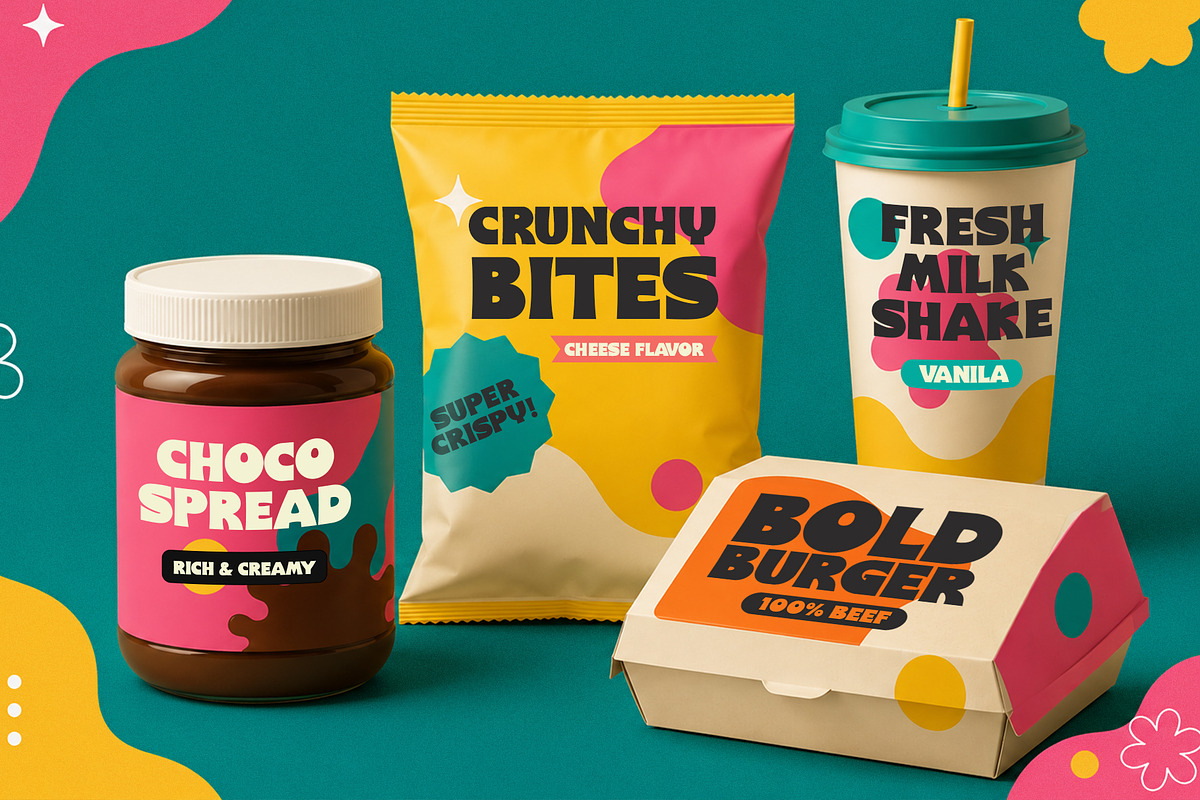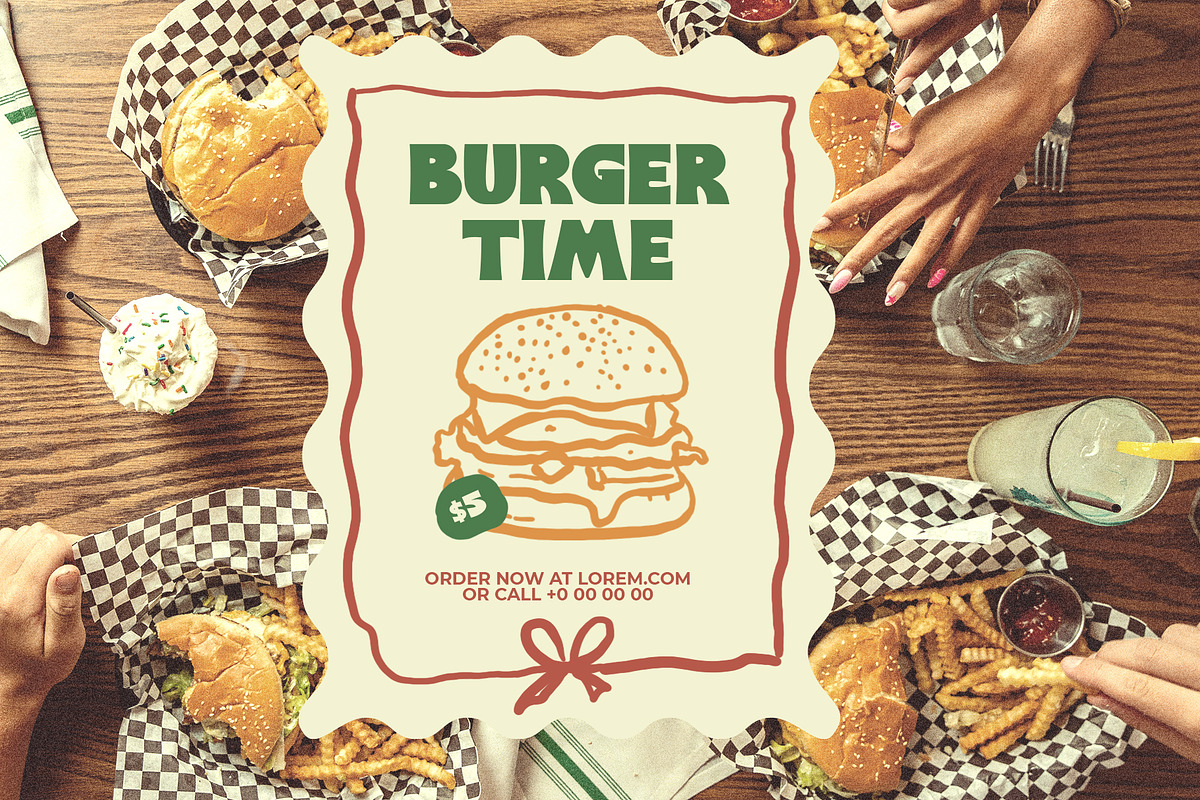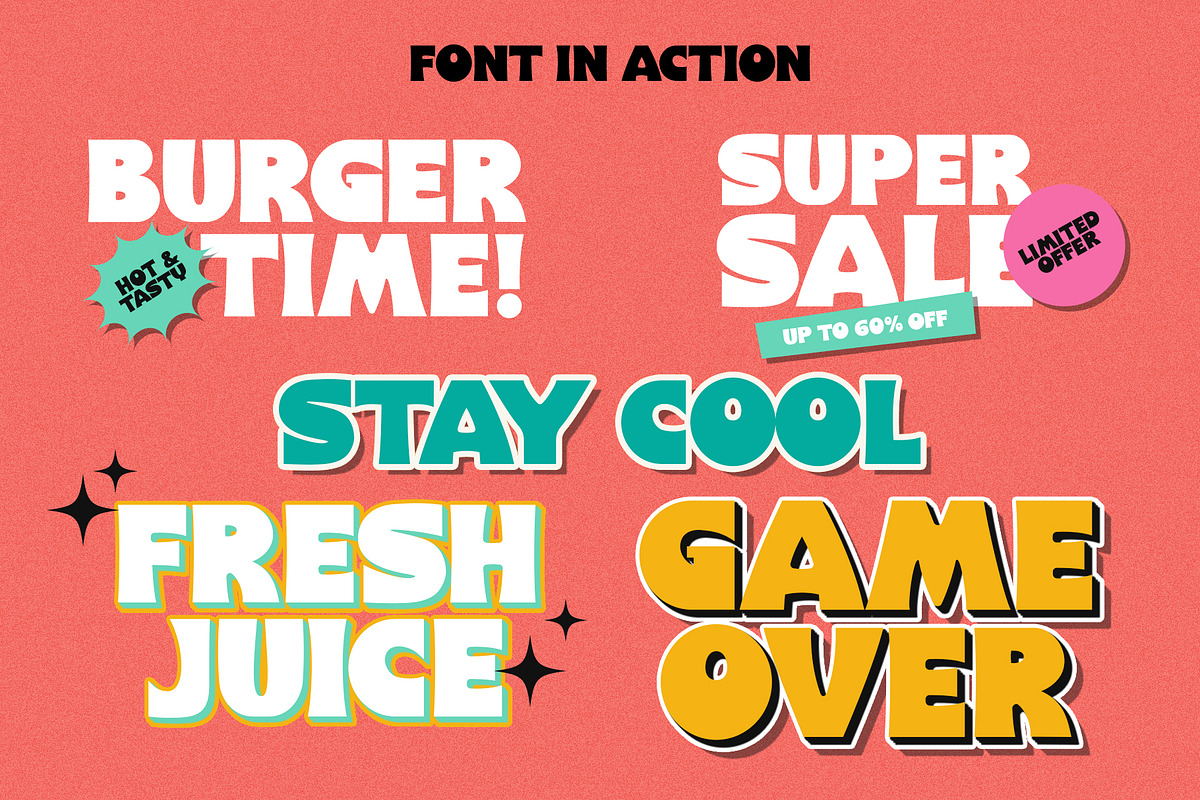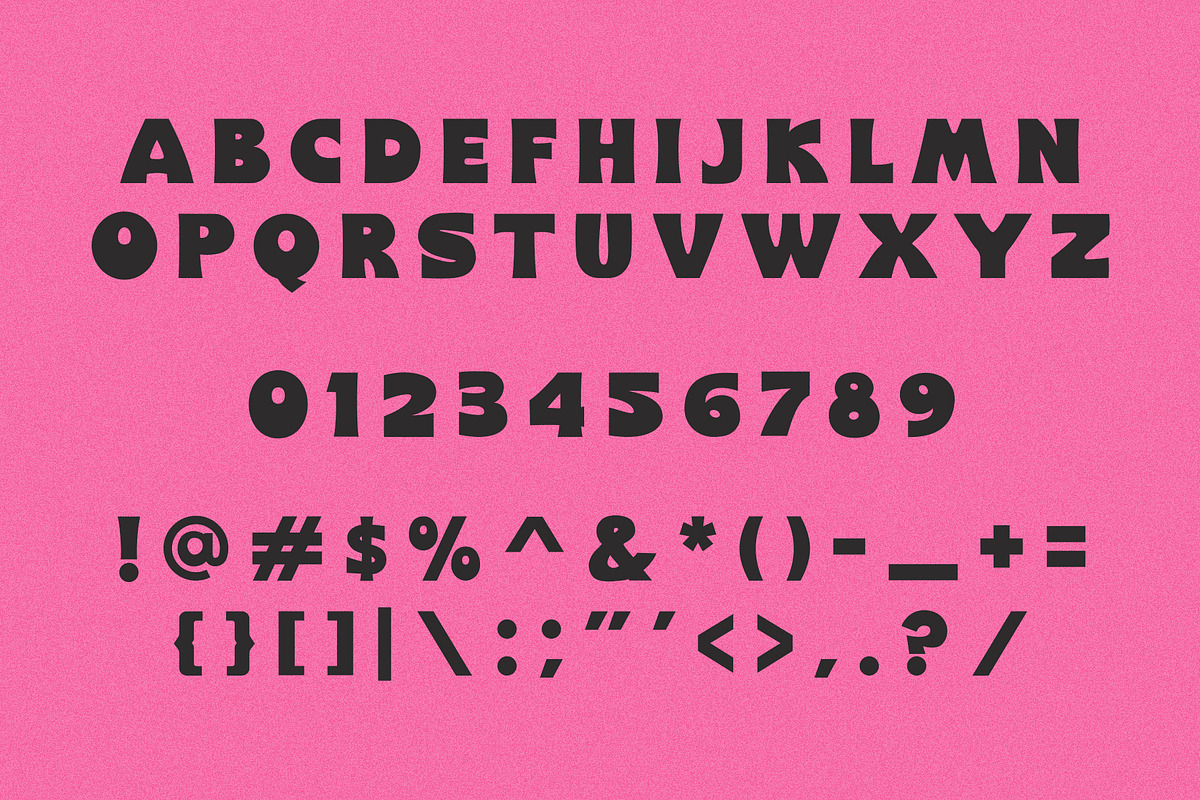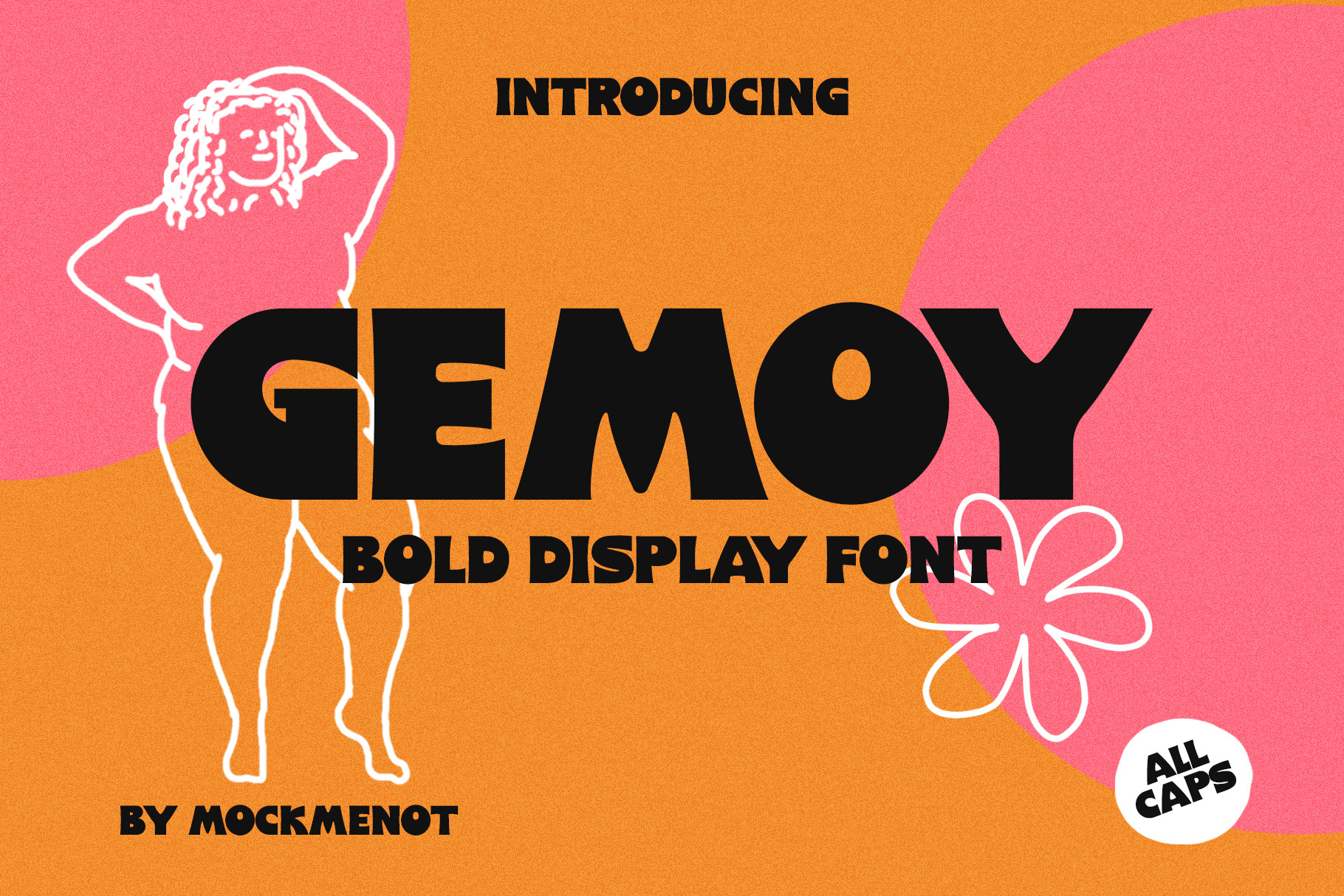
Gemoy – Bold Chunky Display Font
Gemoy is a modern chunky display font featuring bold, playful letterforms with a clean retro feel. Designed for eye-catching headlines, branding, packaging, posters, advertising, food products, merchandise, and social media graphics.